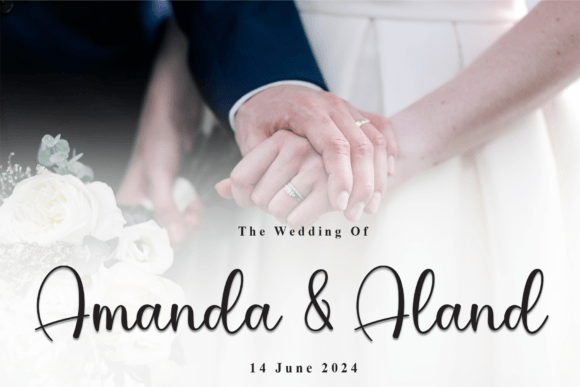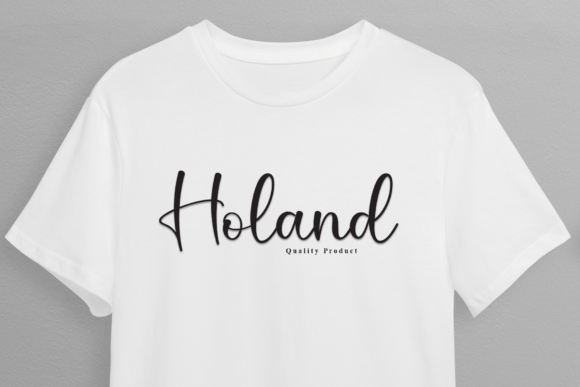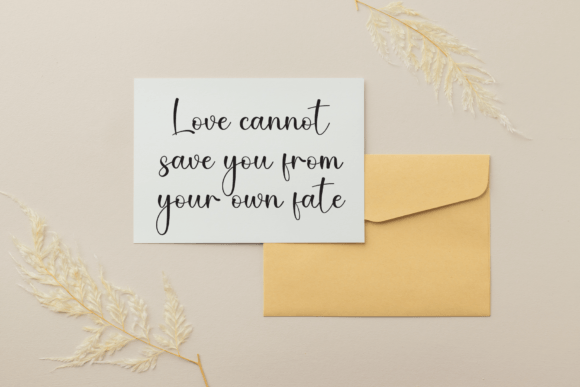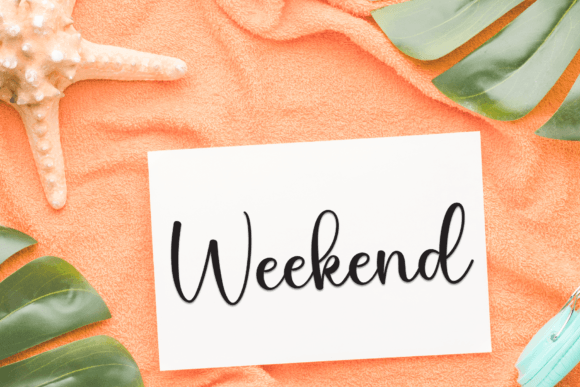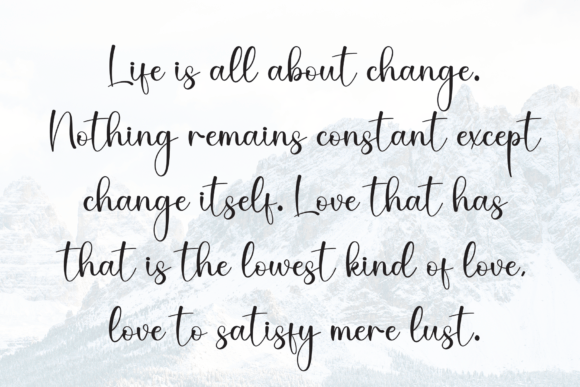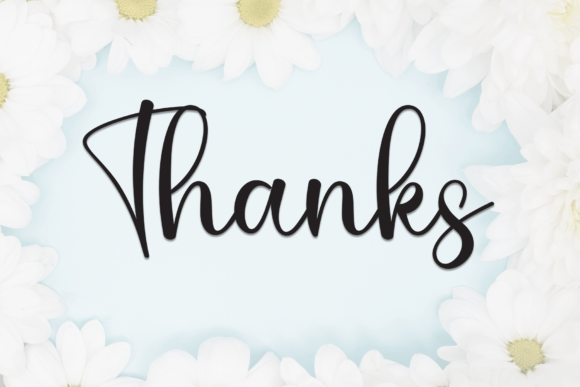
Introducing Flowers Zanitha Font: The Sweet and Friendly Handwritten Font
Are you a designer or crafter looking for a unique and versatile font to elevate your creative projects? Look no further than Flowers Zanitha Font, a sweet and friendly handwritten font that’s perfect for a wide range of designs. With its natural and distinctive style, Flowers Zanitha is sure to capture the hearts of your audience and leave a lasting impression.
The Characteristics of Flowers Zanitha Font
Flowers Zanitha Font is a beautifully crafted handwritten font that’s characterized by its whimsical and approachable feel. Its natural and unique style makes it incredibly fitting for a large pool of designs, from elegant wedding invitations and stylish branding materials to playful greeting cards and delightful DIY projects. The font’s friendly and approachable demeanor is sure to resonate with your audience and add a touch of warmth to your designs.
The Versatility of Flowers Zanitha Font
One of the standout features of Flowers Zanitha Font is its incredible versatility. Whether you’re designing for digital or print, this font is sure to shine. Its smooth and flowing lines make it perfect for body text, while its unique and eye-catching style ensures that headlines and titles will pop. Plus, with its wide range of possible uses, you can experiment with different design styles and applications to find the perfect fit for your project.
What Makes Flowers Zanitha Font So Special?
So what sets Flowers Zanitha Font apart from other fonts on the market? Here are just a few things that make it truly special:
- Unique and Handcrafted: Flowers Zanitha Font is a carefully crafted handwritten font that’s been designed to be both beautiful and functional. Its unique style ensures that your designs will stand out from the crowd.
- Natural and Friendly: The font’s natural and friendly style makes it perfect for designs that require a personal touch. Whether you’re creating invitations, branding materials, or DIY projects, Flowers Zanitha Font is sure to add a touch of warmth and approachability.
- Highly Versatile: With its smooth and flowing lines, Flowers Zanitha Font is perfect for a wide range of design applications. Experiment with different styles and uses to find the perfect fit for your project.
How to Use Flowers Zanitha Font in Your Designs
Ready to get started with Flowers Zanitha Font? Here are a few tips and ideas to get you started:
- Wedding Invitations: Add a touch of elegance and whimsy to your wedding invitations with Flowers Zanitha Font. Its natural and friendly style makes it perfect for wedding stationery and decor.
- Branding Materials: Use Flowers Zanitha Font to create eye-catching branding materials, such as business cards, letterheads, and packaging. Its unique and memorable style ensures that your brand will stand out.
- Greeting Cards and DIY Projects: Add a personal touch to your greeting cards and DIY projects with Flowers Zanitha Font. Its playful and approachable style makes it perfect for handmade crafts and gifts.
Key Features of Flowers Zanitha Font:
- Sweet and friendly handwritten font
- Natural and unique style
- Highly versatile and adaptable
- Perfect for wedding invitations, branding materials, greeting cards, and DIY projects
- Easy to read and visually appealing